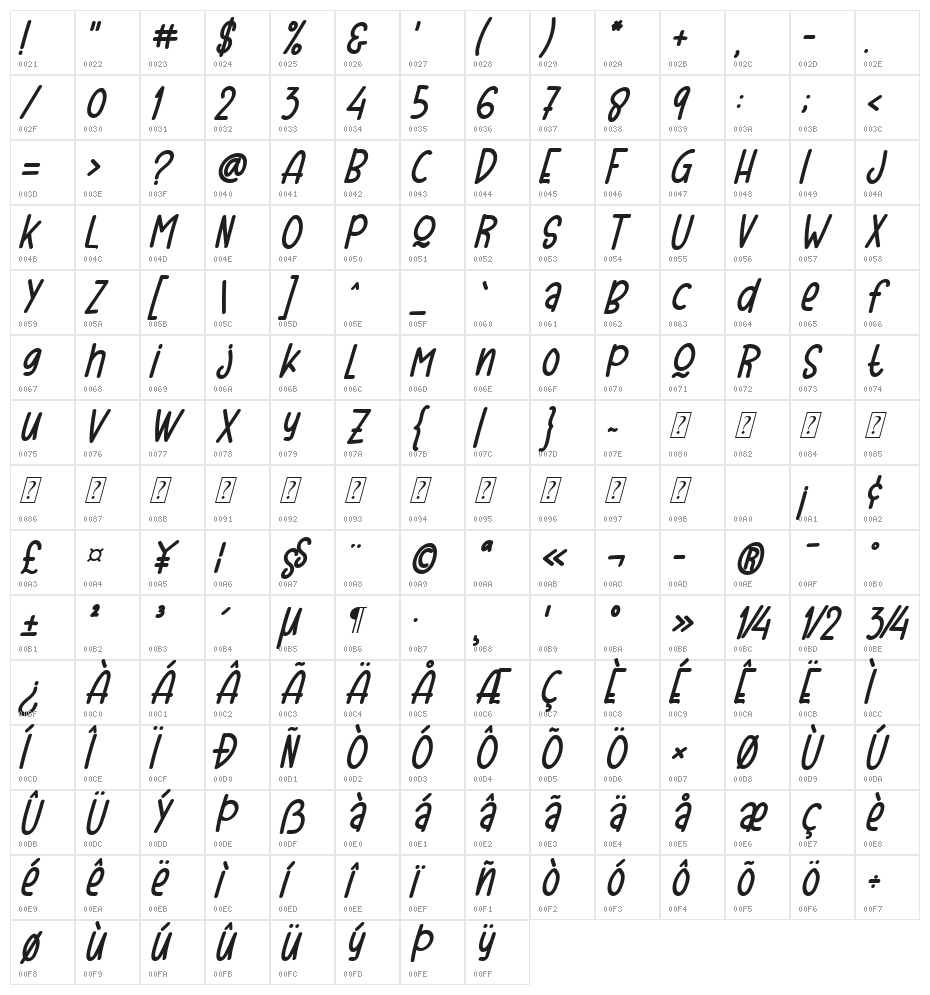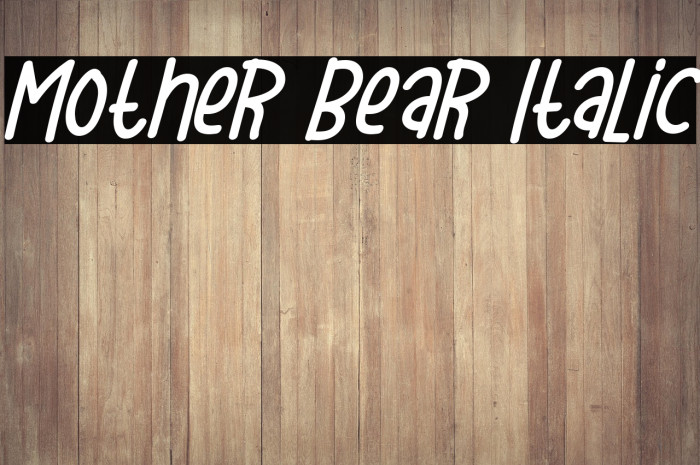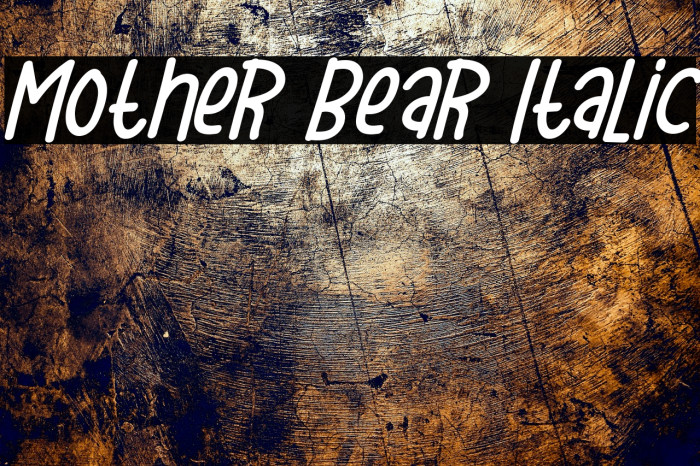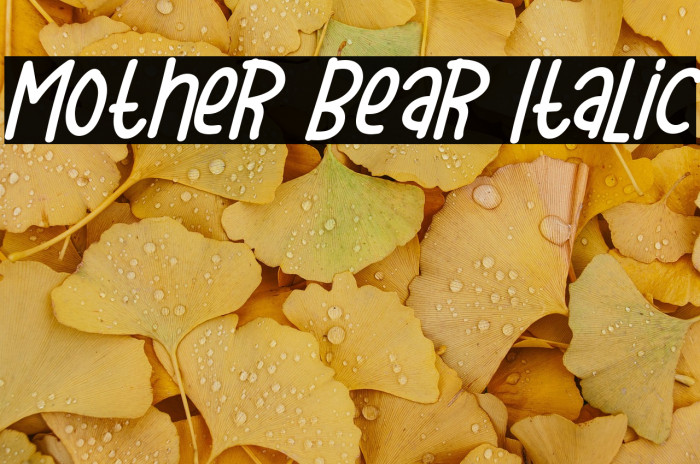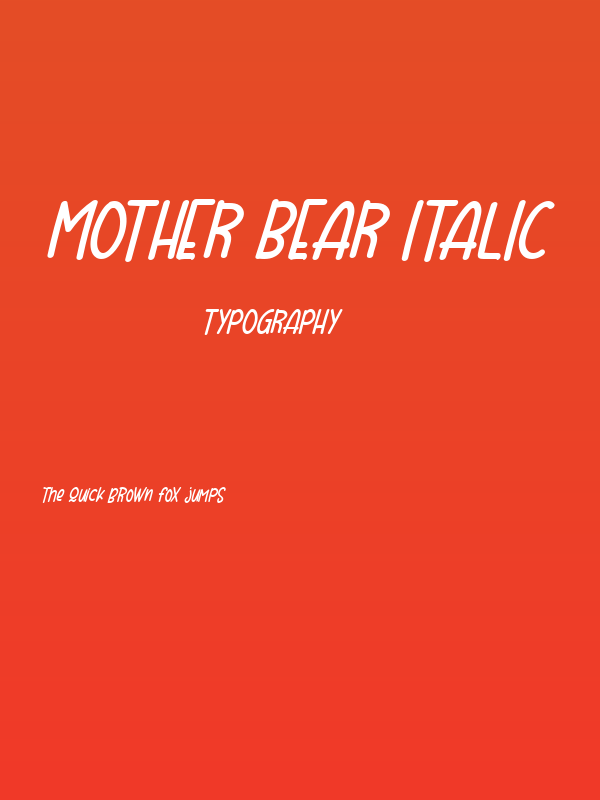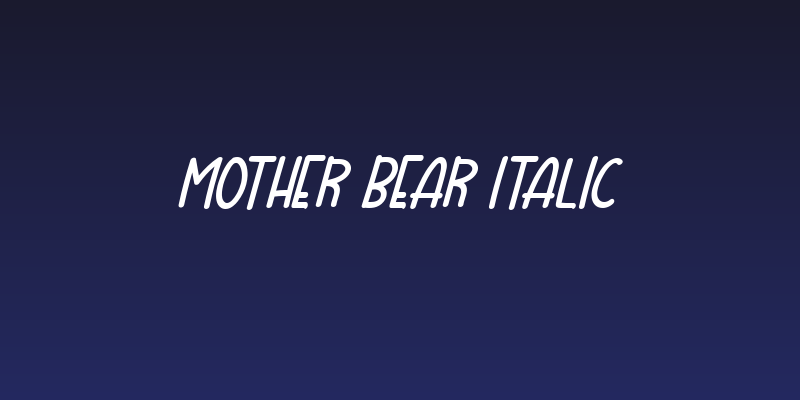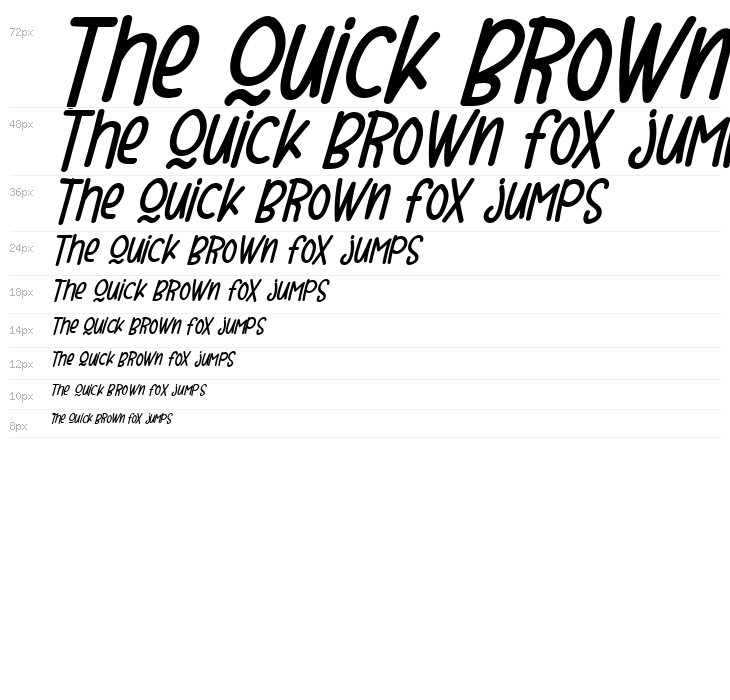
Mother Bear Italic Font
Mother Bear Italic Description
This font features a playful and dynamic handwritten style, characterized by its smooth, flowing curves and slightly slanted orientation. The letters are bold and rounded, giving a friendly and approachable feel. The uppercase and lowercase letters maintain a consistent style, with a slight variation in size and shape that adds to the casual aesthetic. The numerals and special characters are equally expressive, maintaining the same lively and informal tone. This font is ideal for projects that require a personal touch, such as invitations, greeting cards, or branding for creative businesses.
| Overall Style | Playful, Casual |
| Proposed Projects | Ideal for invitations, greeting cards, and creative branding. |